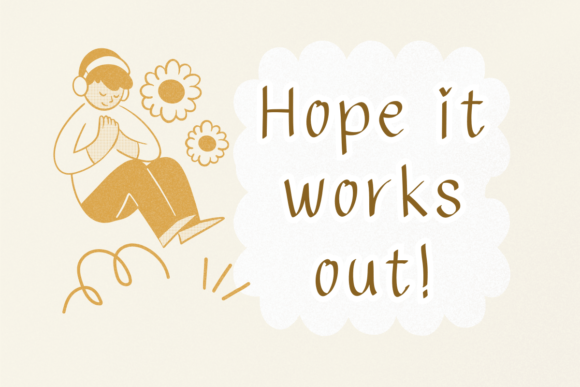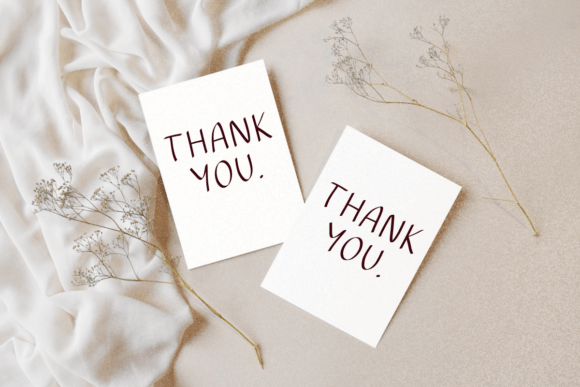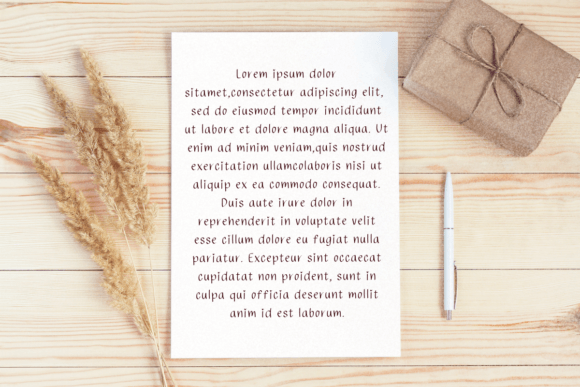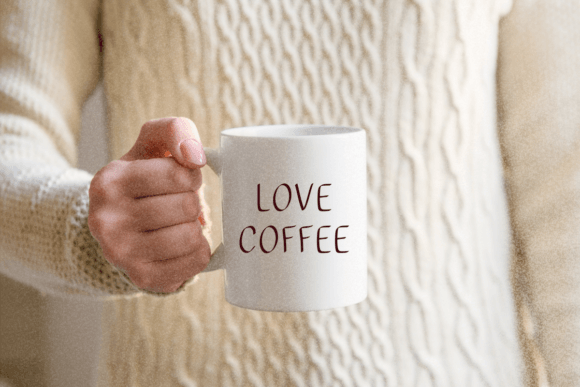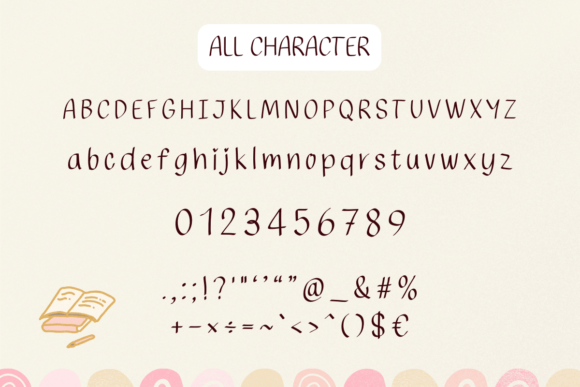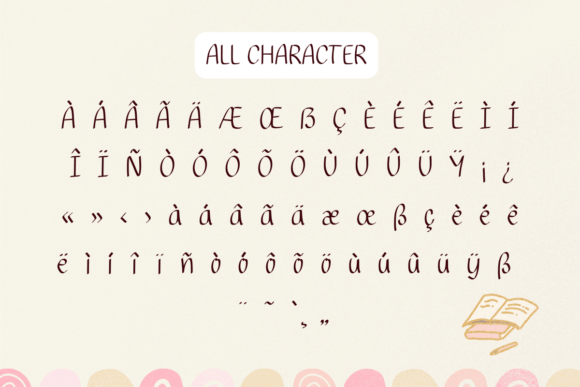
Introducing Ballpoint Pen Font: The Ultimate Handwritten Font for Designers and Crafters
Are you tired of using the same old fonts for your designs and crafts? Look no further! Ballpoint Pen Font is here to add a touch of cuteness and charm to your creations. This simple yet charming handwritten font is perfect for designers, crafters, and teachers looking to add a personal touch to their work.
What is Ballpoint Pen Font?
Ballpoint Pen Font is a delightful handwritten font that mimics the look of writing with a ballpoint pen. Its smooth and flowing strokes give it a friendly and approachable feel, making it perfect for a wide range of applications. Whether you’re creating crafts for kids, designing greeting cards, or making materials for your students, Ballpoint Pen Font is the perfect choice.
Features of Ballpoint Pen Font
- Simple and Cute: Ballpoint Pen Font has a simple and cute design that is sure to capture the attention of your audience. Its charm lies in its imperfections, giving it a handmade feel that is hard to resist.
- Versatile: This font is incredibly versatile and can be used in a variety of applications, from crafts and DIY projects to greeting cards and educational materials.
- Easy to Read: The clear and flowing strokes of Ballpoint Pen Font make it easy to read, even at small sizes.
- Customizable: You can use Ballpoint Pen Font to create a wide range of designs, from simple and minimalist to complex and colorful.
Uses of Ballpoint Pen Font
Ballpoint Pen Font is perfect for a wide range of applications, including:
- Crafts for Kids: Use Ballpoint Pen Font to create fun and engaging crafts for kids, such as coloring pages, activity sheets, and DIY projects.
- Greeting Cards: Add a personal touch to your greeting cards with Ballpoint Pen Font. Its charming and friendly feel makes it perfect for birthdays, holidays, and special occasions.
- Educational Materials: Teachers can use Ballpoint Pen Font to create engaging and interactive educational materials, such as worksheets, activity sheets, and classroom decorations.
- Design Projects: Ballpoint Pen Font is also perfect for design projects, such as creating posters, flyers, and brochures.
Tips for Using Ballpoint Pen Font
Here are some tips for using Ballpoint Pen Font to get the most out of your designs:
- Keep it Simple: Ballpoint Pen Font is perfect for simple and minimalist designs. Keep your text concise and clear to make the most of its charm.
- Experiment with Colors: Try out different colors and color combinations to add depth and interest to your designs.
- Mix and Match: Combine Ballpoint Pen Font with other fonts and graphics to create unique and eye-catching designs.
- Make it Personal: Use Ballpoint Pen Font to add a personal touch to your designs. Add names, dates, and special messages to make your designs extra special.
Ballpoint Pen Font is a versatile and charming handwritten font that is perfect for designers, crafters, and teachers. Its simple and cute design makes it perfect for a wide range of applications, from crafts and DIY projects to greeting cards and educational materials. With its ease of use and customizable features, Ballpoint Pen Font is sure to become a favorite in your design arsenal. So why wait? Download Ballpoint Pen Font today and start creating your own unique and charming designs!
Make the text on your product become the centerpiece of your design with Ballpoint Pen Font. Its smooth and flowing strokes will add a touch of elegance and sophistication to your creations, making them stand out from the crowd. Whether you’re a designer, crafter, or teacher, Ballpoint Pen Font is the perfect choice for your next project.